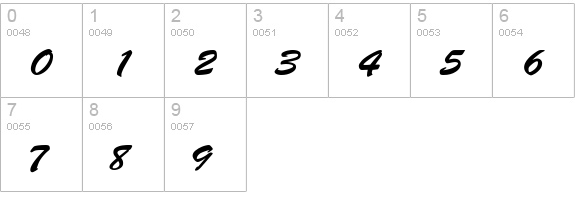
Brush Script Font Details
Brush Script is a elegant and stylish font that exudes a sense of sophistication and charm. Its smooth brush strokes give it a unique and handcrafted look, perfect for adding a personal touch to your designs. The flowing curves and natural feel of Brush Script make it a popular choice for invitations, greeting cards, and other projects where a touch of elegance is desired. The best part about Brush Script font is that it is free to download at FontsMarket.com, making it easily accessible for anyone looking to elevate their design projects with a touch of class. Whether you're working on a wedding invitation, a logo design, or a social media graphic, Brush Script is sure to make your text stand out with its graceful and artistic appearance. Add a touch of sophistication to your designs with Brush Script font, available for free download now at FontsMarket.com.